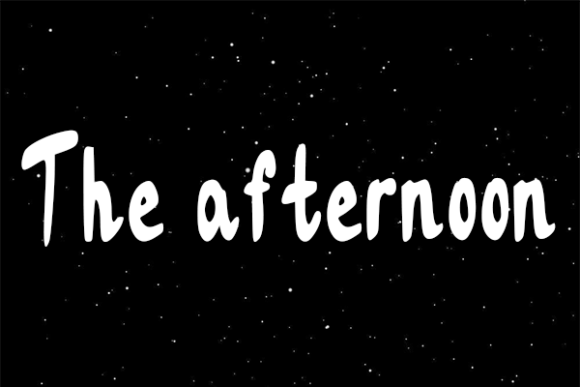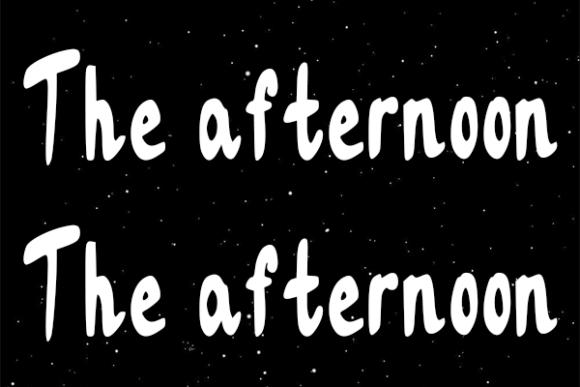
About The Afternoon Font
“The Afternoon” emerges as the optimal choice for crafting eye-catching logos, establishing compelling branding, and creating impactful quotes. Each letter in this font is imbued with a unique and beautiful touch, ensuring that your design comes alive with character and distinction.
The individuality of each letter in “The Afternoon” contributes to the overall appeal, making it a standout choice for logos and branding where memorability is paramount. The beauty of the font adds a touch of sophistication, elevating the visual identity of your design projects.
The versatility of “The Afternoon” extends to various design applications. Whether you’re working on logos that demand a strong and captivating presence, branding materials that require a unique identity, or quotes that need an elegant touch, this font rises to the occasion, offering a visually striking and effective solution.
In summary, “The Afternoon” is more than just a font; it’s a creative tool meticulously designed to enhance your design projects. With its unique and beautiful touch, it stands as an excellent choice for those seeking to create eye-catching logos, establish a strong brand presence, and craft memorable quotes. Let “The Afternoon” infuse life and distinction into your designs, making them truly come alive.